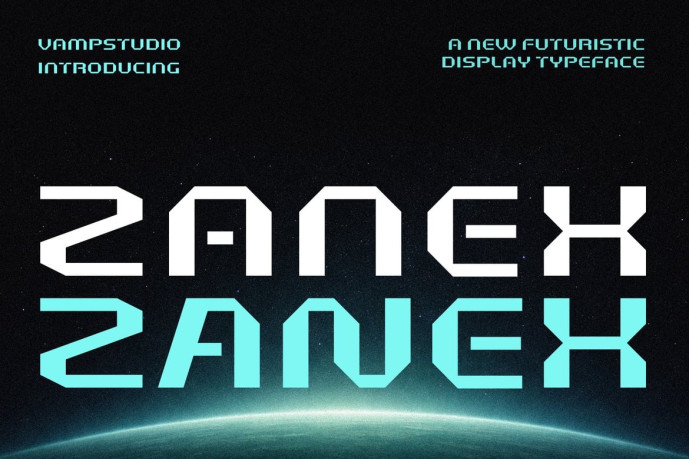
Zanex Display Font
Designer: Vampstudio
Zanex Display Font is a modern techno display font crafted with strong geometric shapes and futuristic character styling. Designed to deliver a bold digital atmosphere, this font is perfect for gaming projects, esports branding, sci-fi movie titles, technology posters, futuristic logos, UI headlines, YouTube thumbnails, and futuristic branding theme.
Its sharp edges and cyber-inspired construction create a powerful visual impact while maintaining excellent readability for headlines and display typography. Zanex brings a high-tech aesthetic that instantly elevates futuristic and modern creative projects.